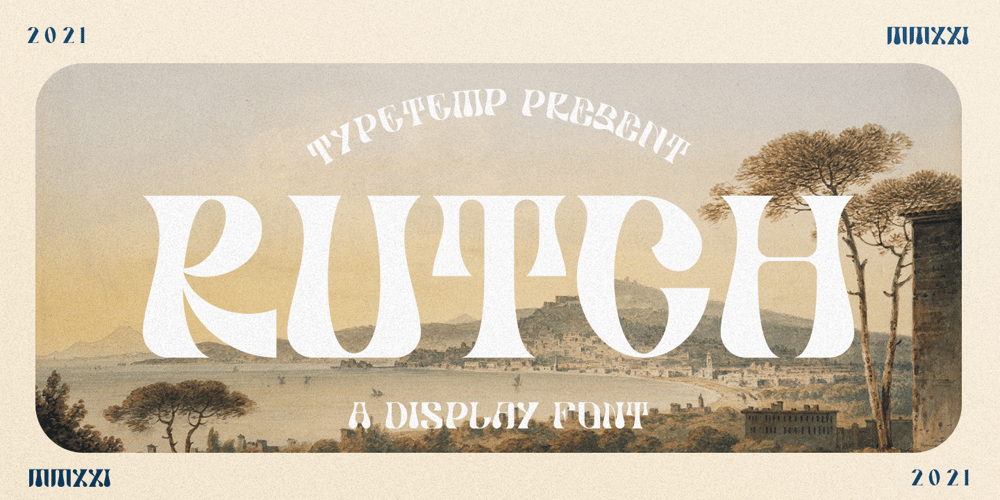
Rutch Display
Rutch Display font
Rutch Display Font Family was designed by Egi Ahmad Mufid and published by Typetemp Studio. Rutch Display contains 1 styles and family package options. RUTCH – Display is complemented by some of the same alternatives made with love. Access your OpenType features to access the large selection of alternate letters and ligatures, select the letters you like from the large variety to get the display font you like. Perfect for editorial projects, Logo design, Clothing Branding, product packaging, magazine headers, or simply as a stylish text overlay to any background image.